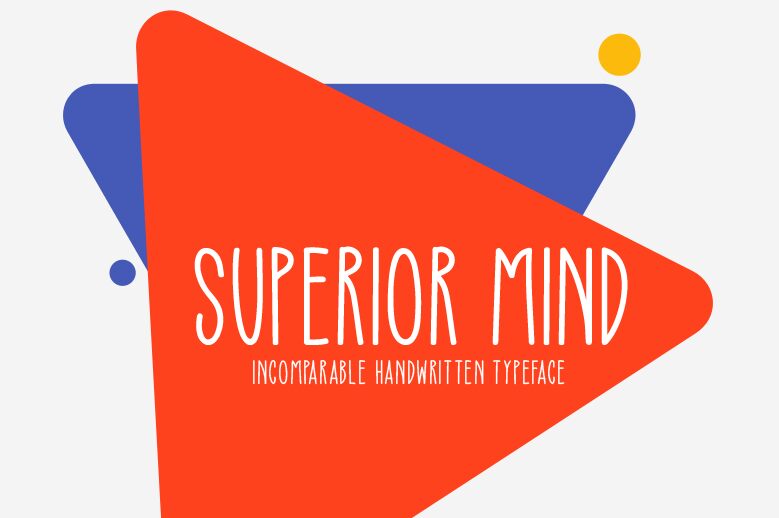
Superior Mind
Superior Mind, designed by Md Shohail Bhuian, is a semi-light, extra-condensed handwritten font that offers a blend of personal touch with a high degree of sophistication. Its slender yet flowing lines suggest elegance and thoughtfulness, making it an excellent choice for branding projects that require a bespoke feel. The semi-light weight provides a subtle delicacy, perfect for fashion labels, invitations, or editorial designs where nuance is key.
This font's handwritten style adds an intimate and approachable quality to text while maintaining an air of professionalism. With its extra-condensed width, Superior Mind is uniquely suited to spaces where economy of space is crucial without sacrificing readability or style. Whether used in digital graphics or print media, this font holds the potential to elevate creative works with its distinctive character and refined aesthetic.